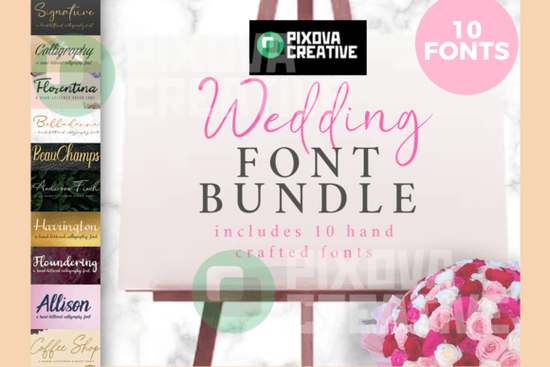
If you're working on wedding invitations, signage, or stationery, choosing the right typography can make all the difference. The Wedding 10 Bundle Font brings together ten thoughtfully designed typefaces that blend elegance with versatility perfect for designers, crafters, and small business owners creating memorable wedding experiences. Whether you’re designing a rustic welcome sign or delicate place cards, this bundle offers enough variety to match any theme without sacrificing sophistication.
Why use a curated font bundle instead of picking fonts individually?
Time is often tight when you’re handling custom wedding orders or launching seasonal products. Instead of searching endlessly for fonts that complement each other, a well-assembled bundle like this one ensures visual harmony across your entire suite of designs. All ten fonts are crafted with consistent quality in mind smooth curves, balanced spacing, and stylistic details that read beautifully both in print and digital formats.
You’ll find everything from delicate scripts to refined serifs. For example, if you love the flowing grace of Allura, you might also appreciate how Allura Signature adds an even more personal, handwritten feel. Similarly, Sweetica pairs soft loops with modern legibility ideal for seating charts or menu cards where clarity matters as much as charm.
How do these fonts work in real-world wedding projects?
Each font in the Wedding 10 Bundle serves a specific purpose:
- Headline fonts (like Aurelia) draw attention on large-format signs or invitation headers.
- Body-friendly scripts (such as Van Marigella) maintain readability while keeping a romantic tone for programs or thank-you notes.
- Decorative accents add flair to monograms, envelope liners, or digital overlays.
Because they’re designed specifically for weddings, these fonts avoid overly dramatic swashes or hard-to-read letterforms that look pretty in previews but fail in practice. You won’t need to spend extra time adjusting kerning or simplifying glyphs they’re ready to use straight out of the download folder.
Who benefits most from this bundle?
Print-on-demand sellers can quickly create cohesive collections for Etsy or Shopify without licensing headaches. Event planners and calligraphers use these fonts to mock up layouts before hand-lettering final pieces. Hobbyists making DIY decor will appreciate having multiple options that still feel unified no clashing styles or mismatched moods.
Tips for pairing fonts from the bundle
Not every font needs to be used at once. A strong wedding design usually combines just two complementary styles:
- Pick one expressive script for headlines (try Sweetica or Aurelia).
- Choose a simpler companion for body text something clean but still warm, like a subtle sans-serif or a restrained script such as Van Marigella.
Avoid using more than three fonts in a single project. Too many styles can make your design feel scattered rather than intentional.
Just remember: always check the license terms. While the Wedding 10 Bundle includes commercial rights, some individual fonts sold separately may have different rules so sticking with the full bundle simplifies compliance.
Ready to bring refined typography to your next wedding project? The Wedding 10 Bundle Font gives you a versatile toolkit without the guesswork.